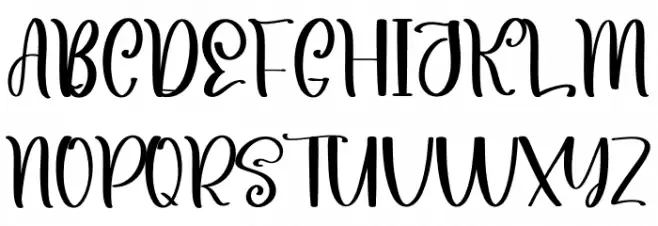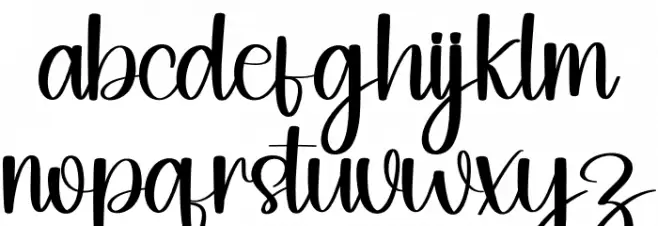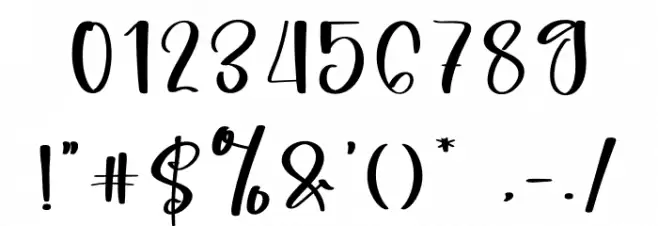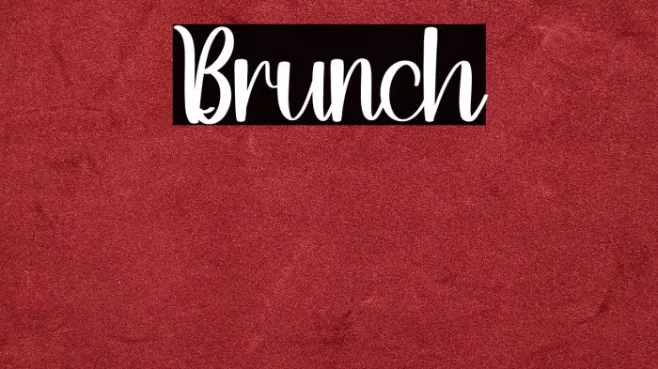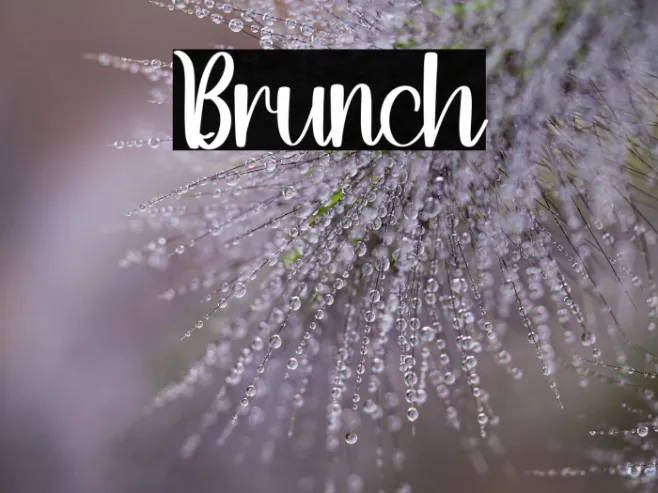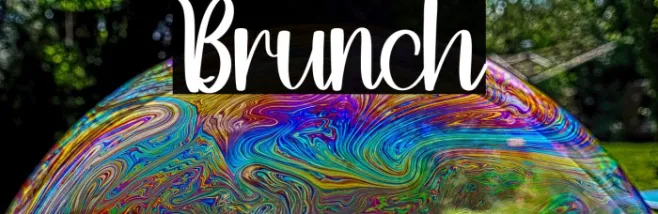
Brunch
This font features a playful and energetic script style with a handwritten feel. The letters are characterized by their fluid and flowing curves, giving them a lively and dynamic appearance. The uppercase letters are bold and slightly elongated, while the lowercase letters maintain a consistent rhythm with a touch of whimsy. The numbers and special characters complement the alphabet with similar stylistic elements, ensuring a cohesive look. The overall design is modern yet retains a classic charm, making it versatile for various creative projects.
A playful and energetic script font with a handwritten feel.
- Proposed Projects: Ideal for greeting cards, invitations, branding, and social media graphics.
- Category: Script
- Use Case: Logos, Headlines, Decorative text